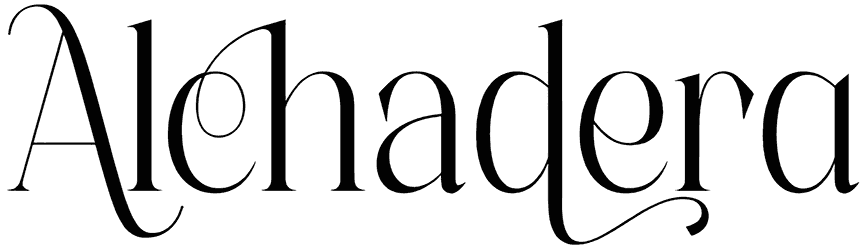
Alchadera Font
It becomes impossible to design any unprofessional business cards when you’re familiar with the artistic touch of Alchadera and let it make a move on your behalf. Whether it’s for media, marketing, art, or beauty purposes, this ligature font gets the best job done tastefully.
With Alchadera on your side, you’re going to forget all about striking out with your clients. Tall, delicate, and classy, this serif font has all it takes to make people respect your business and trust you.